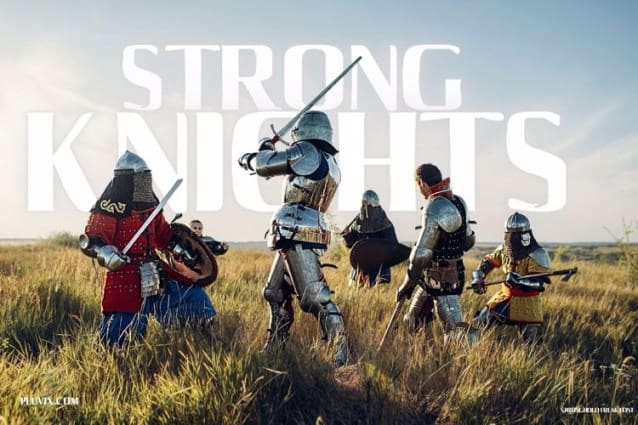
Stronghold Freak Font
Stronghold Freak Font is a bold and commanding typeface designed to make an impact. With its strong, structured characters, it adds power and clarity to your designs. This font is perfect for a variety of projects, including logos, headlines, posters, and branding. Its clean yet bold appearance ensures your message is both striking and easy to read.
Equipped with uppercase and lowercase letters, numbers, punctuation, and international character support, Stronghold Freak Font is versatile and functional for personal and professional use. From digital graphics to print designs, its modern and robust style fits seamlessly into any creative project.